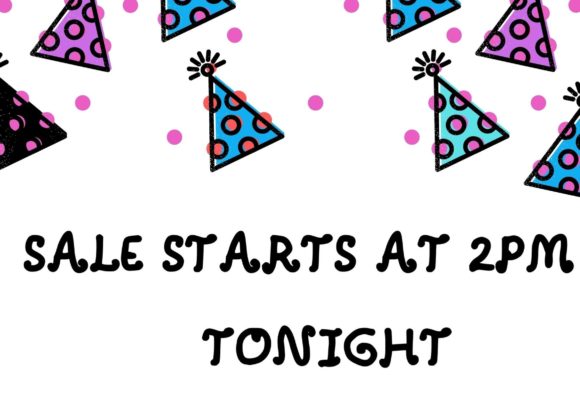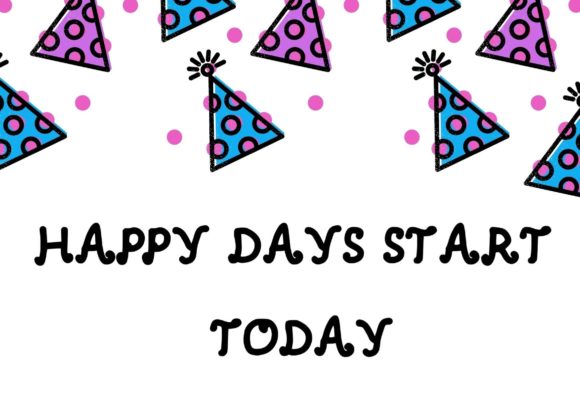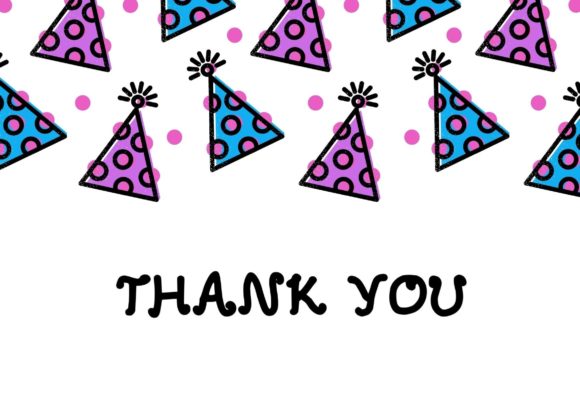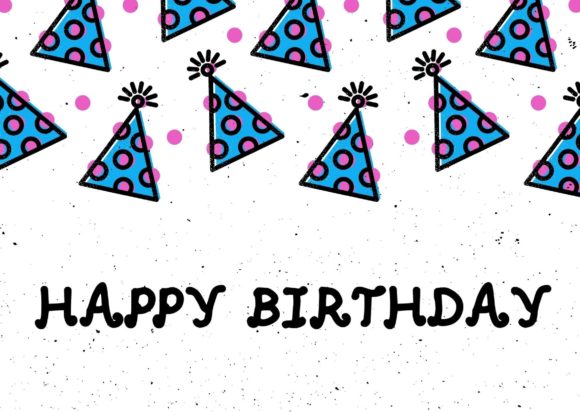
Curvy Sans Handy Font
Curvy sans handy is a playful slab serif font that can add a friendly style to any of your lovely creations! Use it for wedding projects, birthday cards, apparel designs, and more!